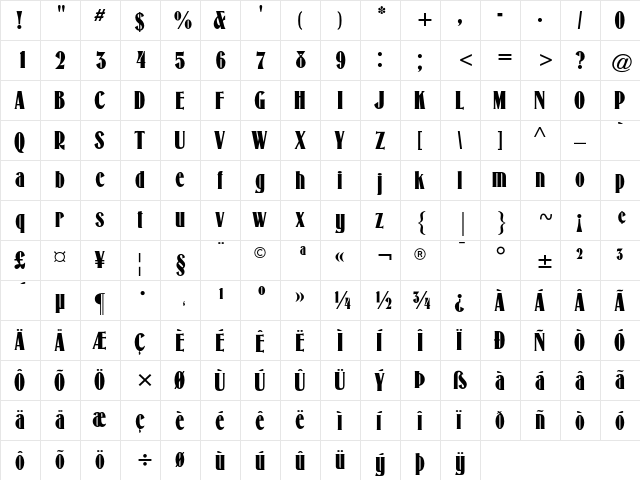
McCollough AT Regular Font Preview
McCollough AT Regular
McCollough AT Regular Font Details
Design Context for McCollough AT Typeface
McCollough AT offers clean, dependable letterforms without strong stylistic allegiance, making it a practical choice for designers who need flexibility.
Pro Tip: Pair McCollough AT with a font of contrasting weight or personality to build a more expressive typographic hierarchy.